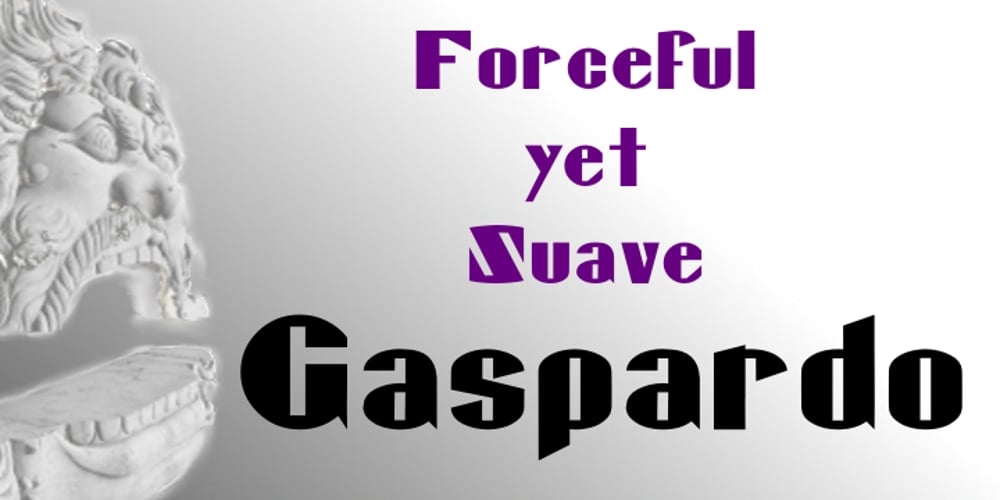
Gaspardo Font Family was designed by Shane Brandes and published by Proportional Lime. Gaspardo contains 40 styles and family package options. Inspired by a text from the 1930’s this font has a power and boldness at once expressing strength and fluidity at the same time. Useful in any situation where you want to seize the eye and hold its attention. Gaspardo does just that much like a cat that is always in your face but nevertheless is soft yet muscular and a joy to be around. Over six hundred defined glyphs for a wide variety of linguistic support not counting the in-font small caps for all style variations.